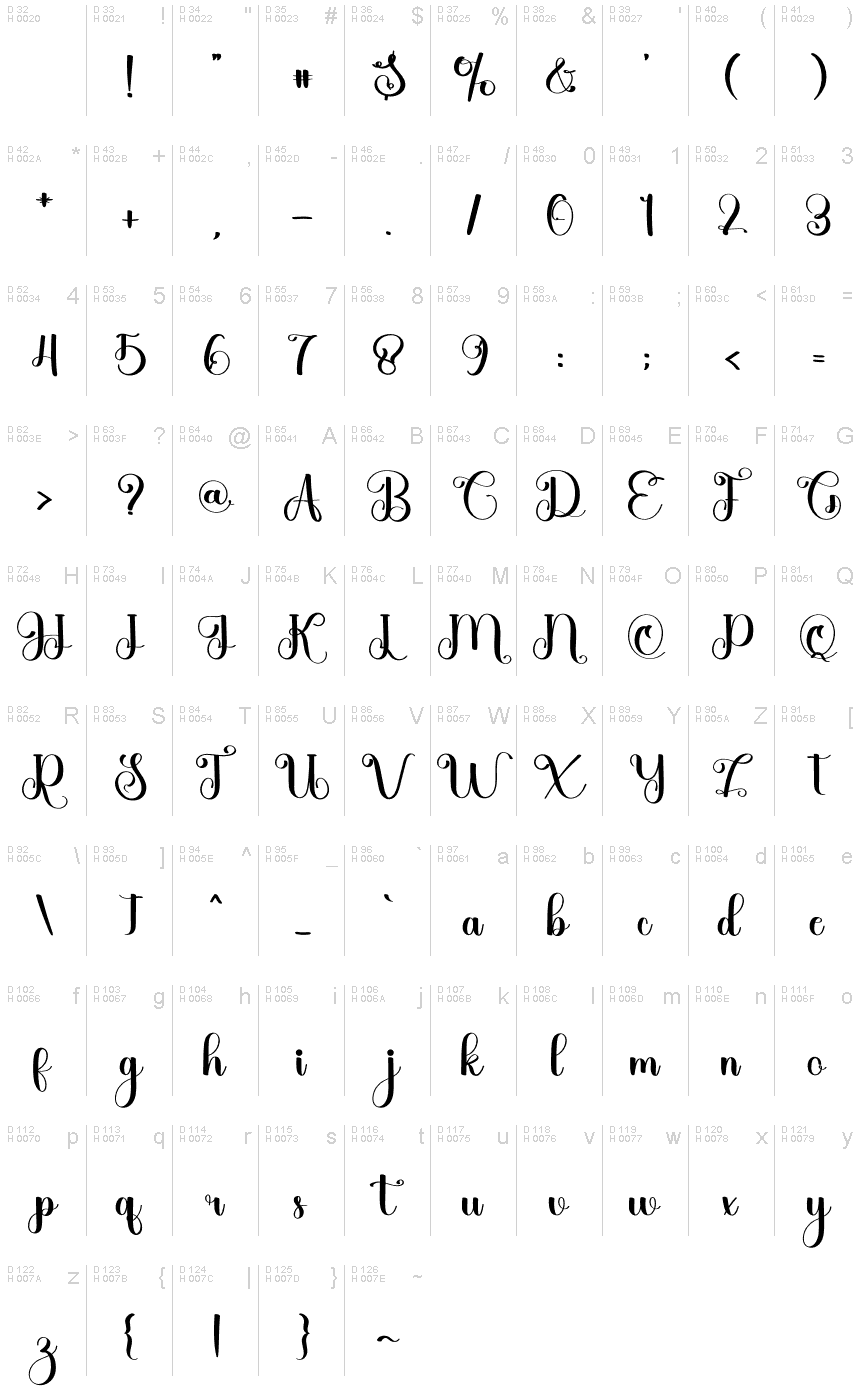
Majesty
Majesty, designed by FreshtypeINK, is a calligraphy font that exudes elegance and sophistication. Its semi-light weight lends it a delicate yet confident touch, making it an ideal choice for designs that require a blend of finesse and readability. With its fluid curves and fine lines, Majesty captures the essence of traditional calligraphy while presenting a modern twist.
The aesthetic appeal of Majesty lies in its harmonious balance between ornate detail and functional clarity. Each letterform is crafted with precision, ensuring that the font maintains its artistic integrity without compromising on legibility. This makes it especially suitable for invitations, branding materials, and any creative project desiring a touch of regal flair.
Majesty's versatility extends beyond print; it shines equally in digital formats where its distinctive style can elevate web design and online content. Whether you seek to convey luxury or simply want to add an element of handcrafted beauty to your work, Majesty provides an impeccable typographic solution.